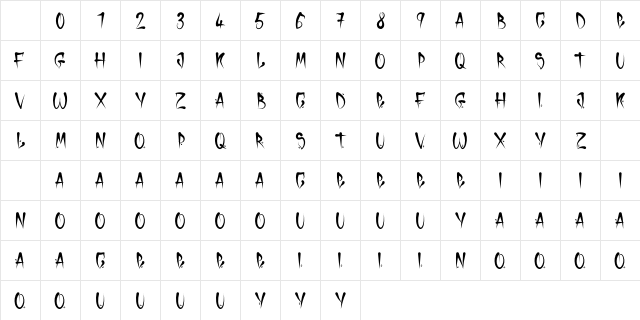
Complete Horror Cholo-DaFont Regular glyph index. Displaying only characters natively supported by Horror Cholo-DaFont Regular font.
Horror Cholo-DaFont carries an unsettling edge - its distorted letterforms are built to unsettle, perfectly suited to horror, Halloween, and dark creative work.
Font Pairing: Pair with a clean neutral sans-serif for body copy to let Horror Cholo-DaFont's character lead without overwhelming the composition.
Pro Tip: Use Horror Cholo-DaFont at larger display sizes for maximum impact. Consider generous tracking to let the disturbing character of each letterform breathe.